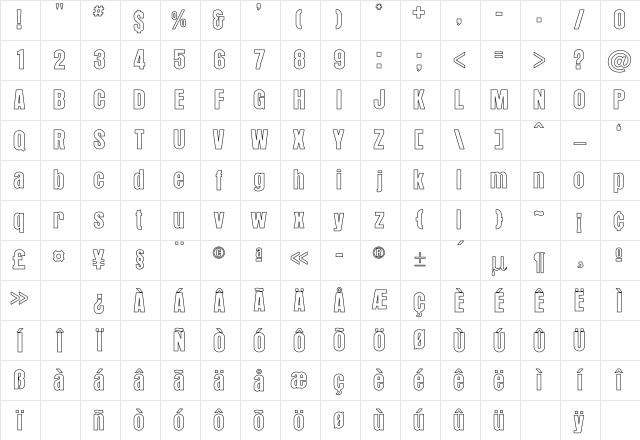
Aurora Hollow Regular
Design Context for Aurora Hollow
Aurora Hollow is a composed and adaptable typeface that performs quietly and consistently across a wide range of design contexts.
Pro Tip: Use Aurora Hollow in both headline and body roles to test its range before committing to a single application.